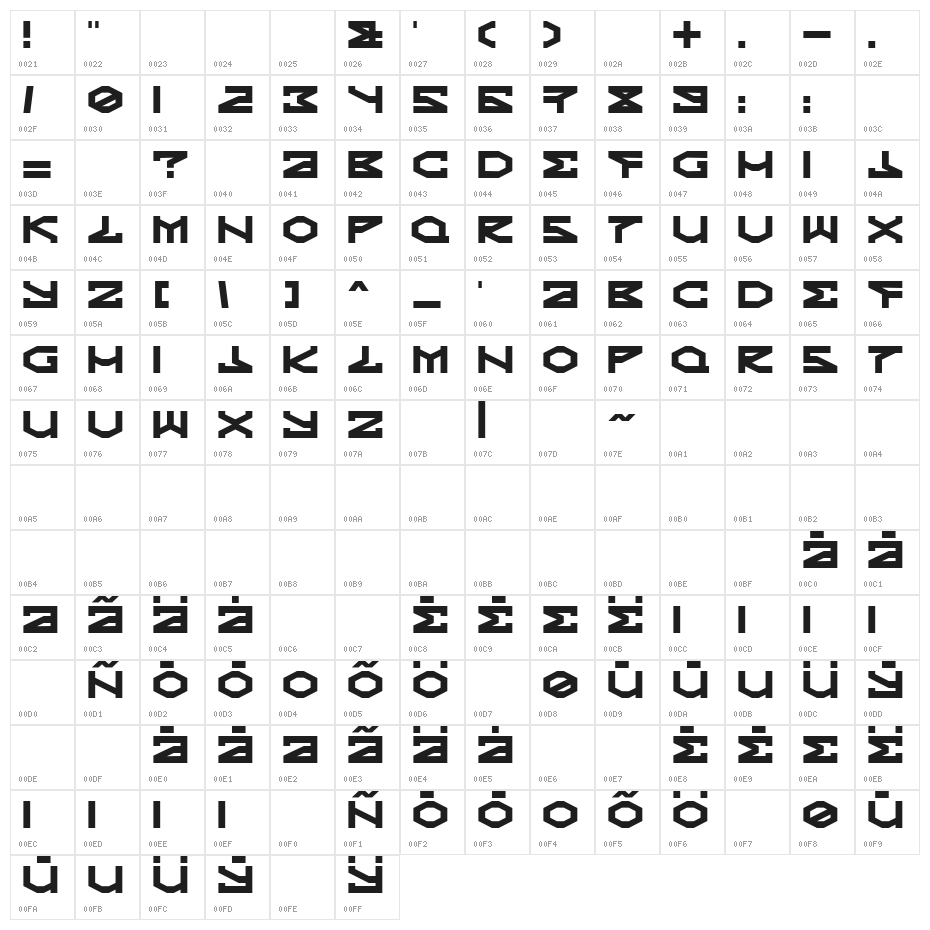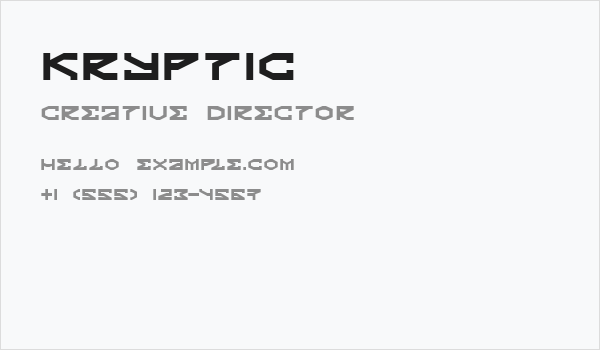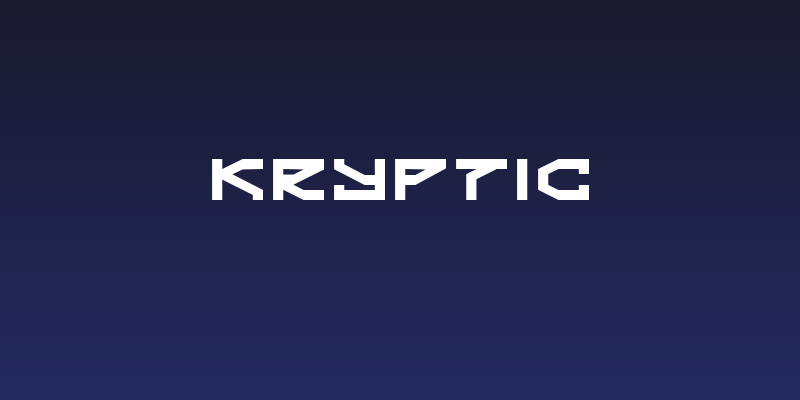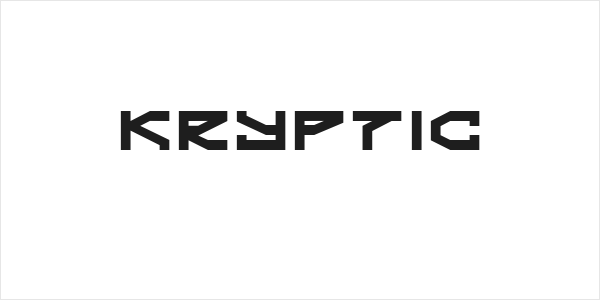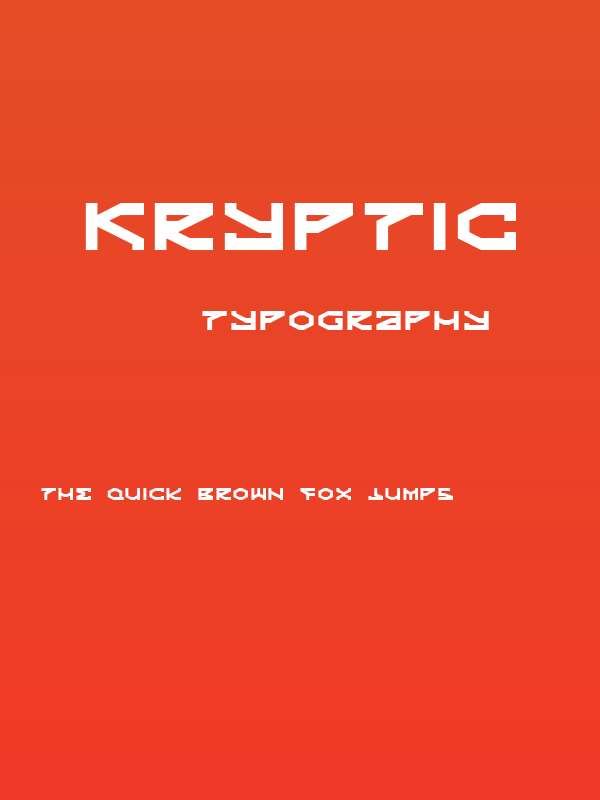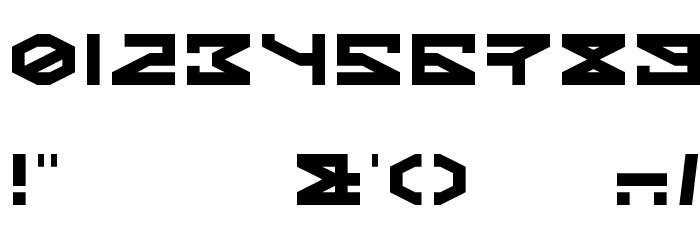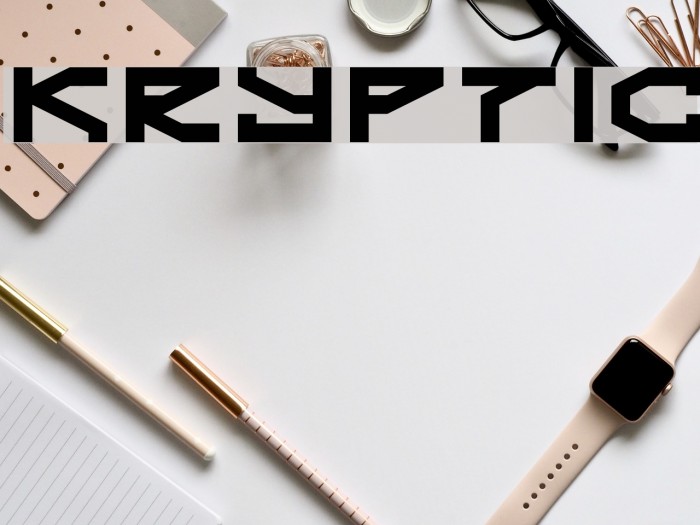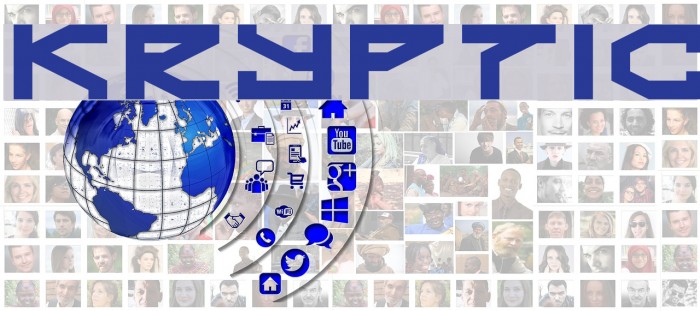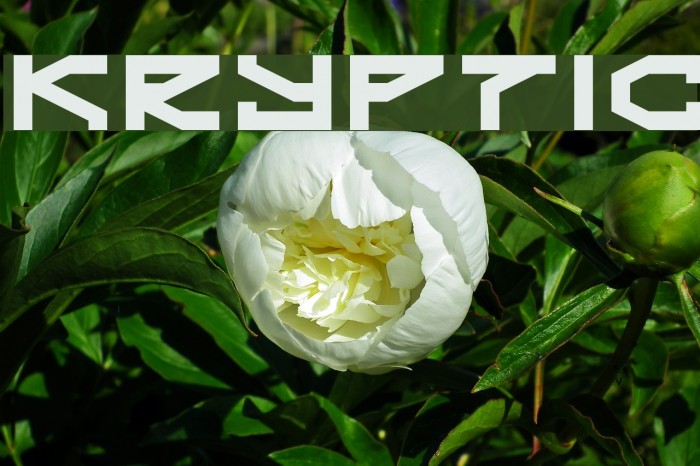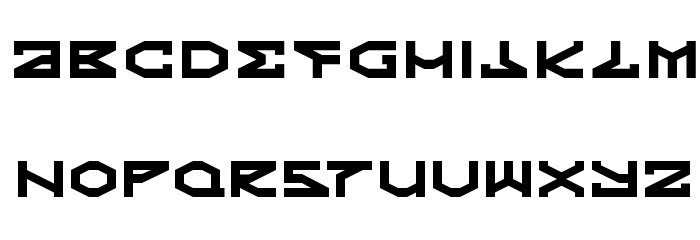
Kryptic Font
Kryptic Description
This font features a bold, geometric design with sharp angles and a futuristic aesthetic. Each character is crafted with precision, utilizing straight lines and angular cuts to create a sense of modernity and innovation. The uppercase and lowercase letters maintain a consistent style, with a unique approach to character formation that emphasizes symmetry and balance. Numbers and special characters follow the same design principles, ensuring a cohesive look across all elements. The font's distinct appearance makes it ideal for projects that require a strong visual impact and a contemporary feel.
| Proposed Projects | Ideal for sci-fi themed projects, tech branding, video game titles, and modern posters. |